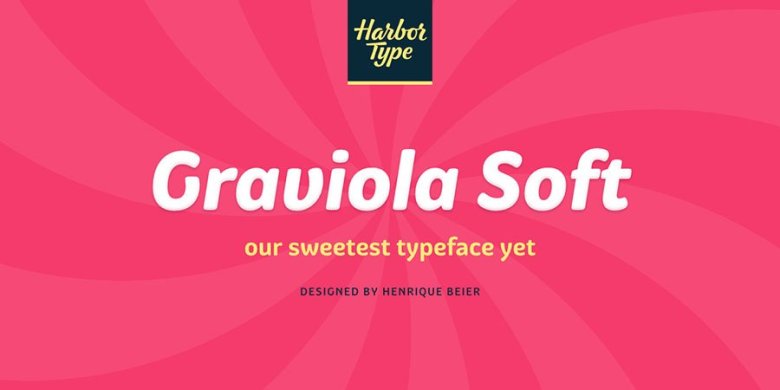
Graviola Typeface
With semi-rounded terminals, Graviola is soft and friendly.
The family consists of 16 fonts, from Thin to Black and matching italics. While the intermediate ones are suited for body text, the extreme weights look specially beautiful at display sizes. Each font contains 530+ glyphs, supporting more than 90 languages.